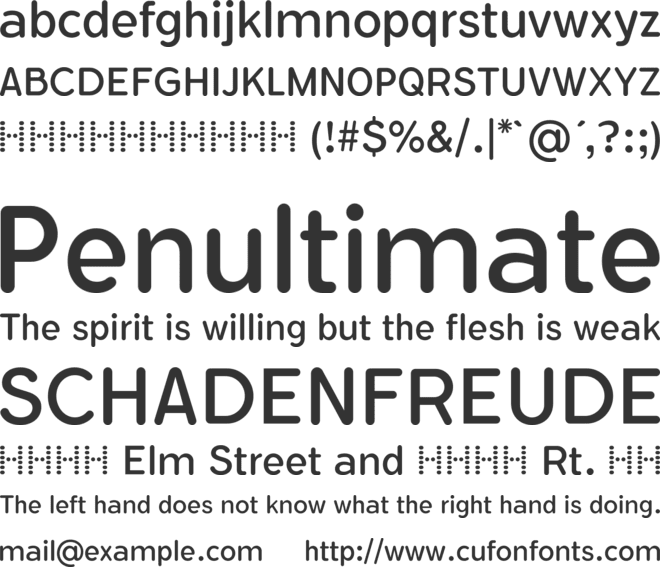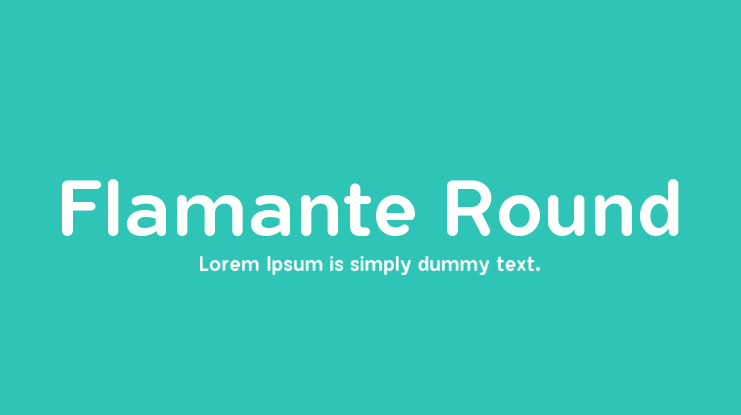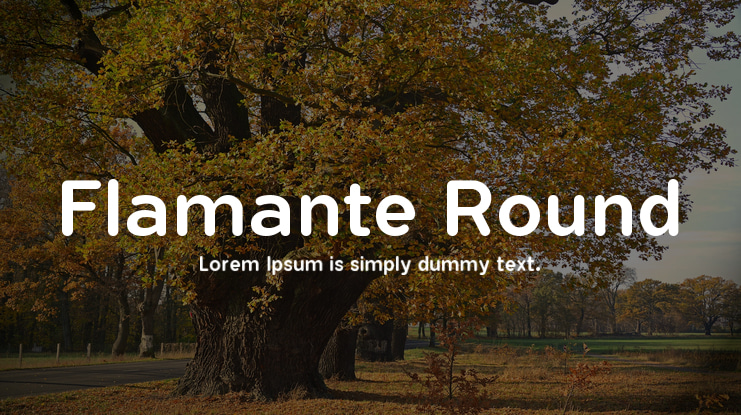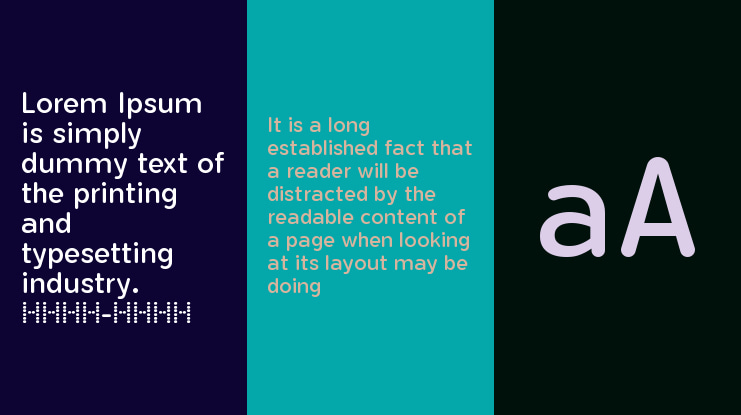
Flamante Round Font Family
Flamante Round is a group of eight corporate typographies of geometric construction, rounded and neo-grotesque style, are fonts with an excellent readability for titles, short texts or for use in signage. The group of fonts is made up of 4 weights: Light, Book, Medium & Bold plus their respective italics. They include the Bitcoin symbol. (b#) =============== FULL VERSION & COMMERCIAL LICENSE: defharo.com/fonts/flamante-round-family/